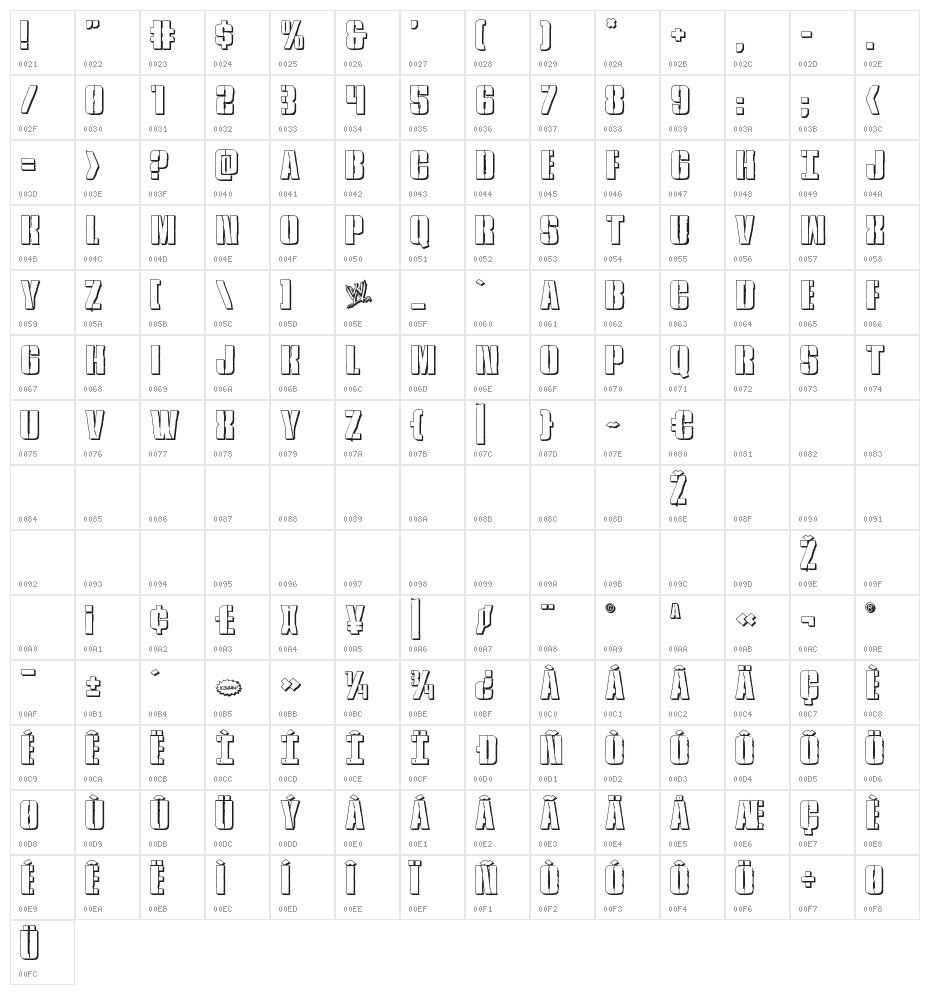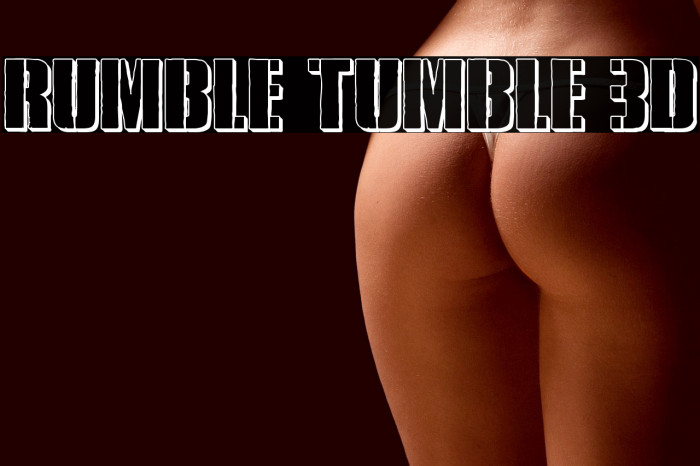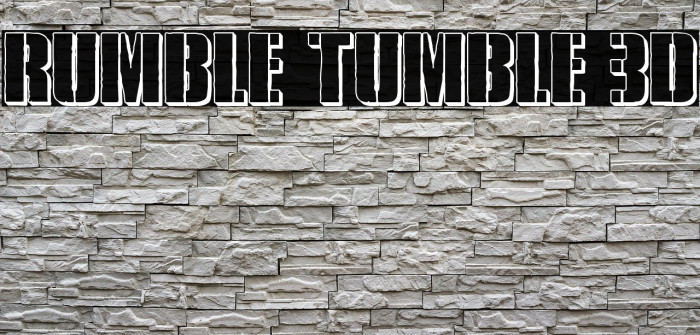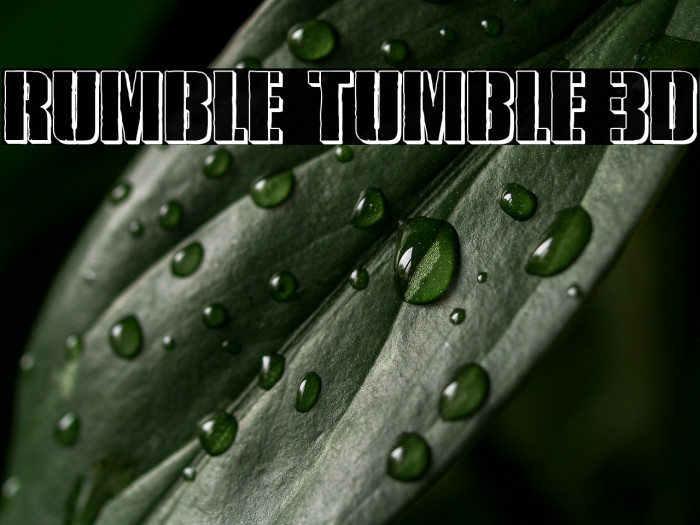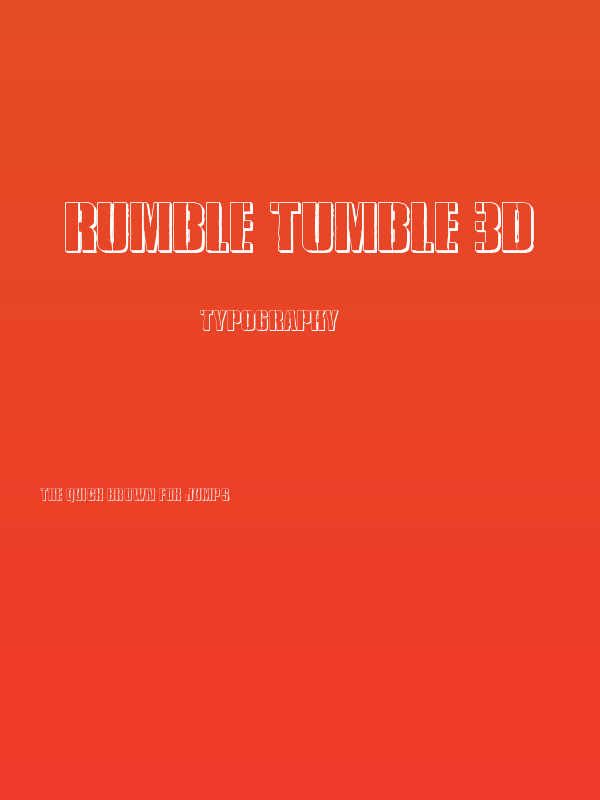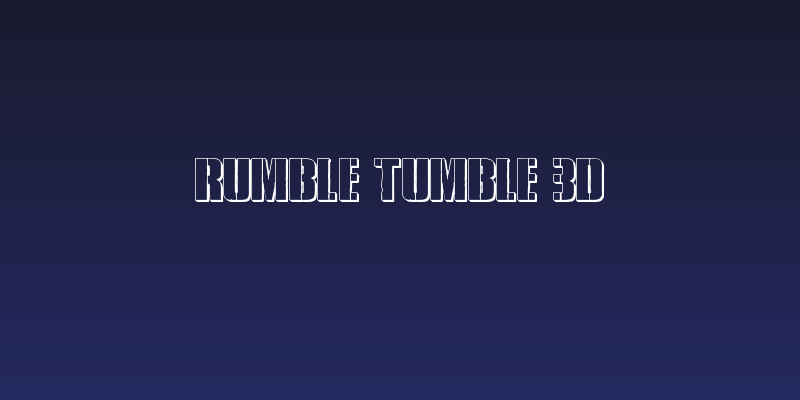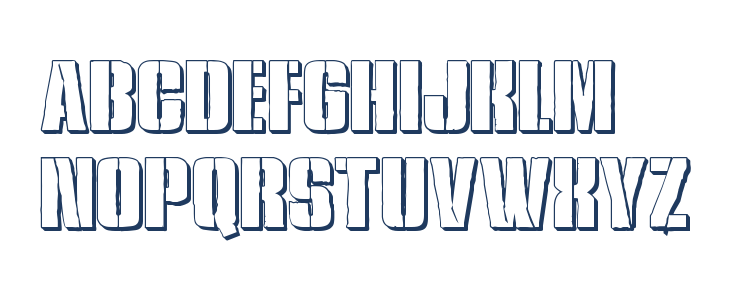
Rumble Tumble 3D Font
Rumble Tumble 3D Description
This font features a bold, three-dimensional design with a rugged, distressed texture that gives it a unique, worn appearance. The uppercase letters are prominently displayed, with a consistent thickness throughout each character, creating a strong and impactful visual presence. The numbers and special characters maintain the same bold style, ensuring uniformity across all elements. The font's design is reminiscent of industrial or urban themes, making it suitable for projects that require a gritty, robust aesthetic. Its distinct style captures attention and conveys a sense of strength and durability.
| Proposed Projects | Ideal for posters, album covers, video game titles, and branding that requires a strong, urban look. |